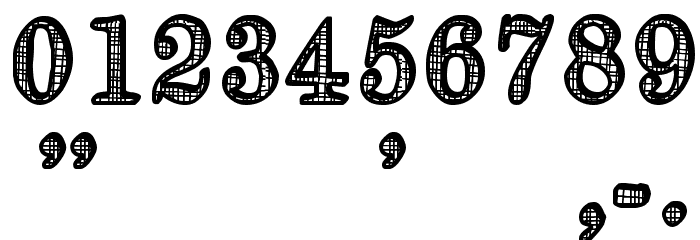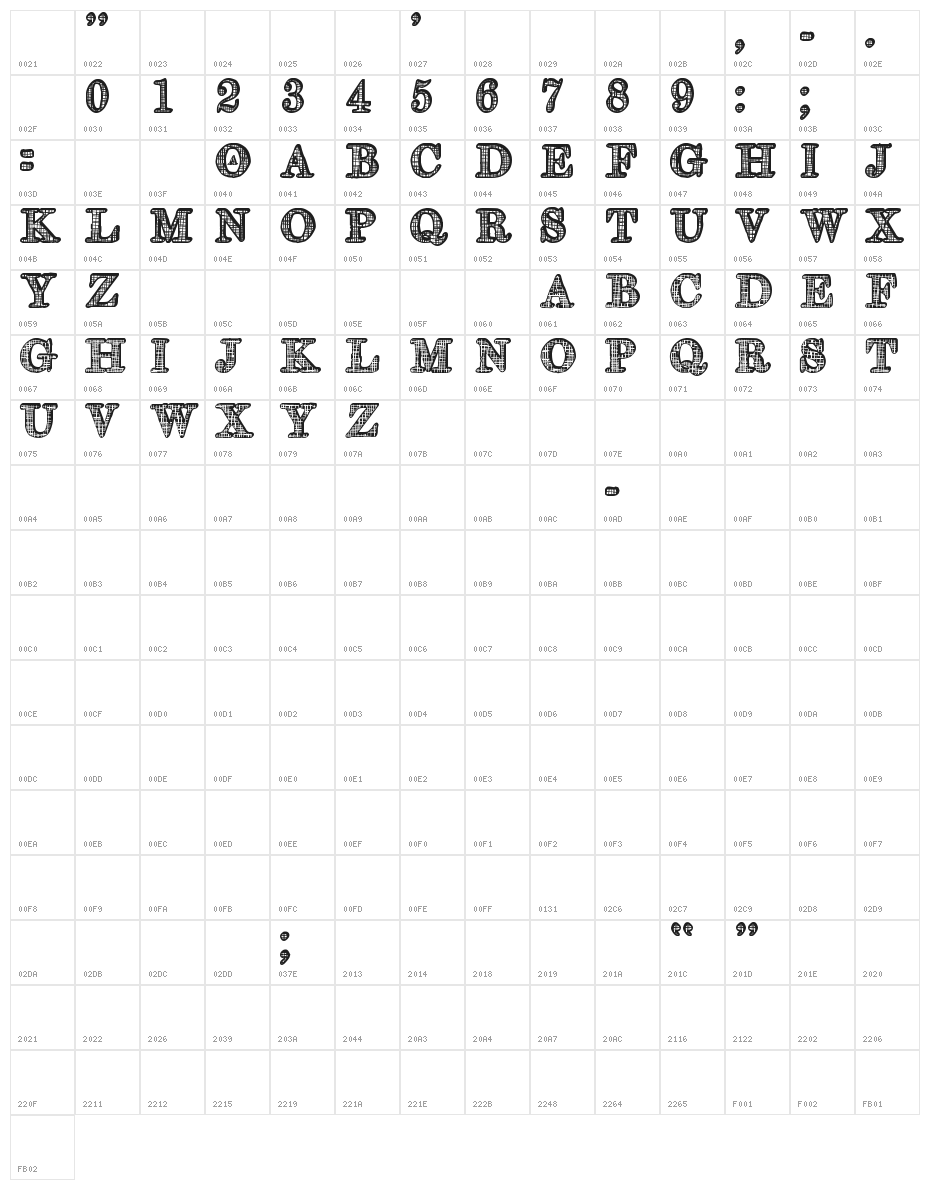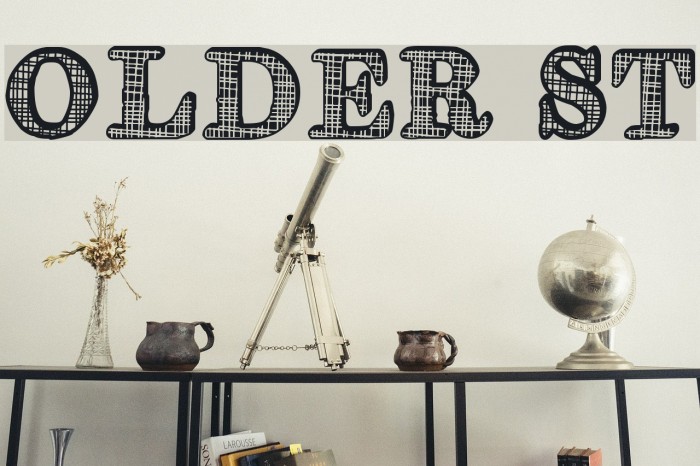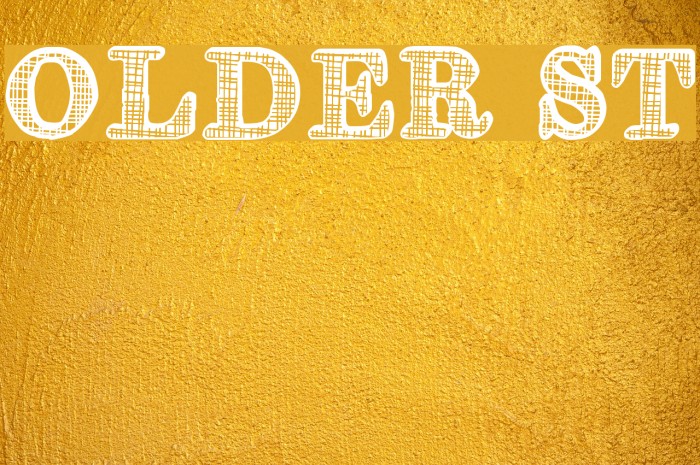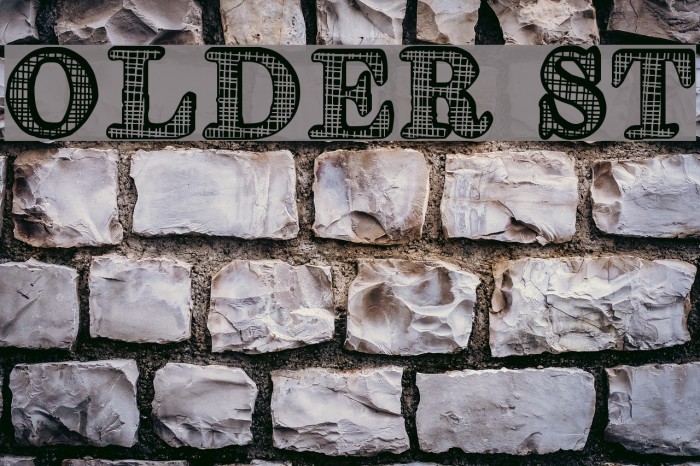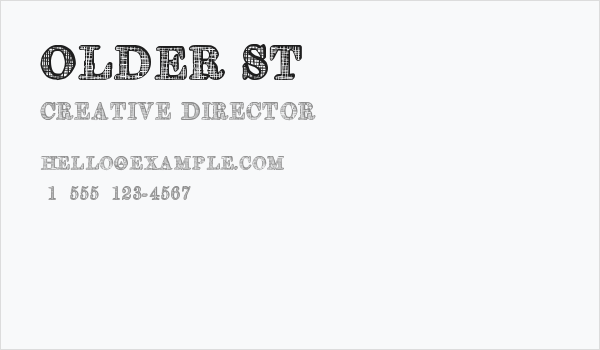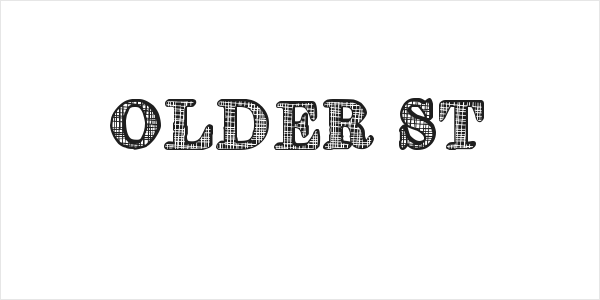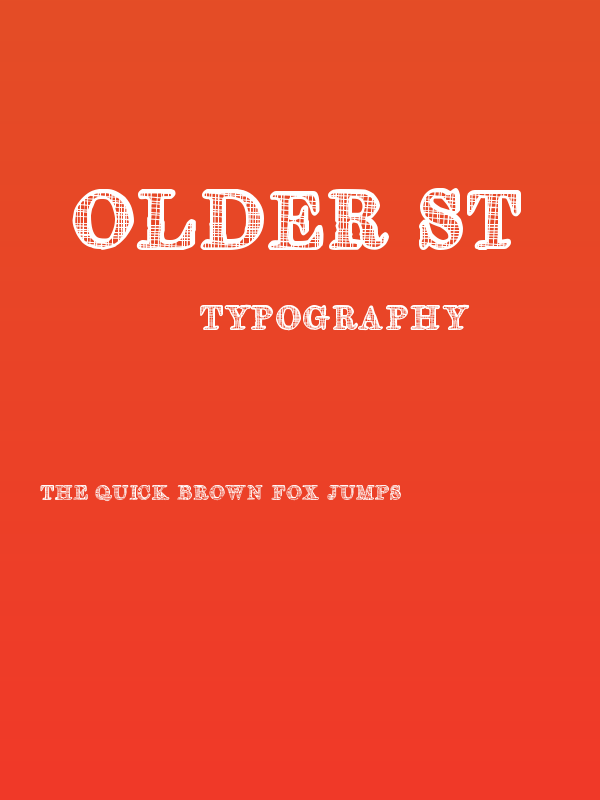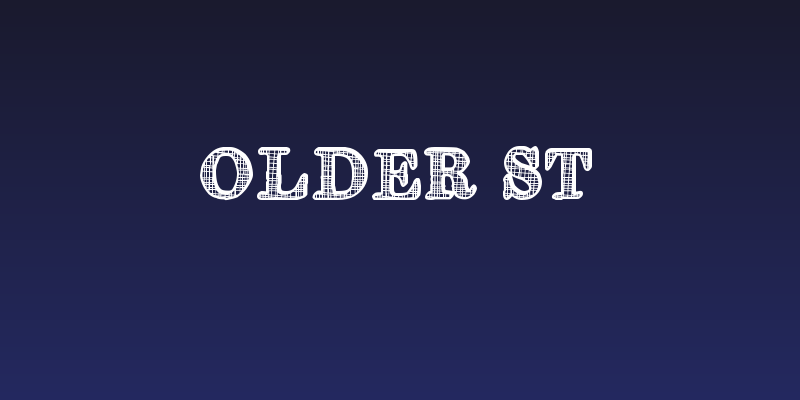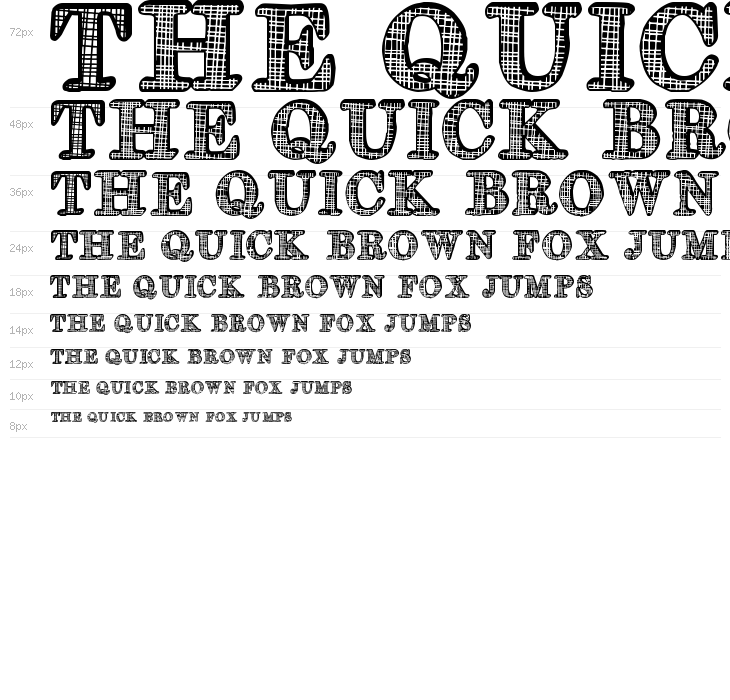
Older St Font
Older St Description
This font features a bold, decorative style with a distinctive checkered pattern filling each character. The uppercase letters are robust and eye-catching, making them ideal for attention-grabbing headlines. The numbers and punctuation marks maintain the same decorative theme, ensuring consistency across all elements. The font's unique design is reminiscent of vintage signage or retro posters, offering a nostalgic yet playful aesthetic. Its boldness and intricate detailing make it unsuitable for body text but perfect for projects that require a strong visual impact.
| Proposed Projects | Perfect for vintage posters, retro signage, branding, and decorative headlines. |